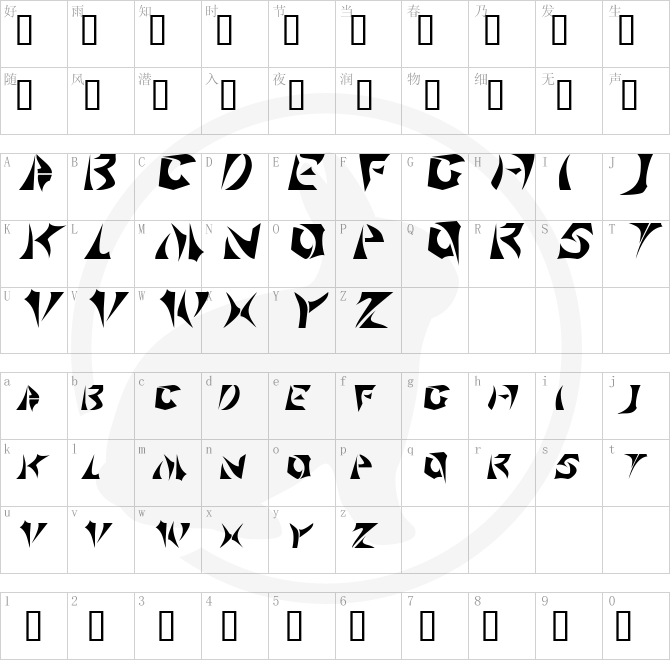
- Font Name:Sabertooth
Sabertooth.ttf is a very beautiful artistic font, Sabertooth.ttf is widely used in the design and printing of various books and pictures,Sabertooth.ttf has a strong visual impact,Sabertooth.ttf is a commonly used font in newspapers, magazines and books, and is used in posters, e-commerce Poster design, store design, logo design, font design and other fields.Sabertooth.